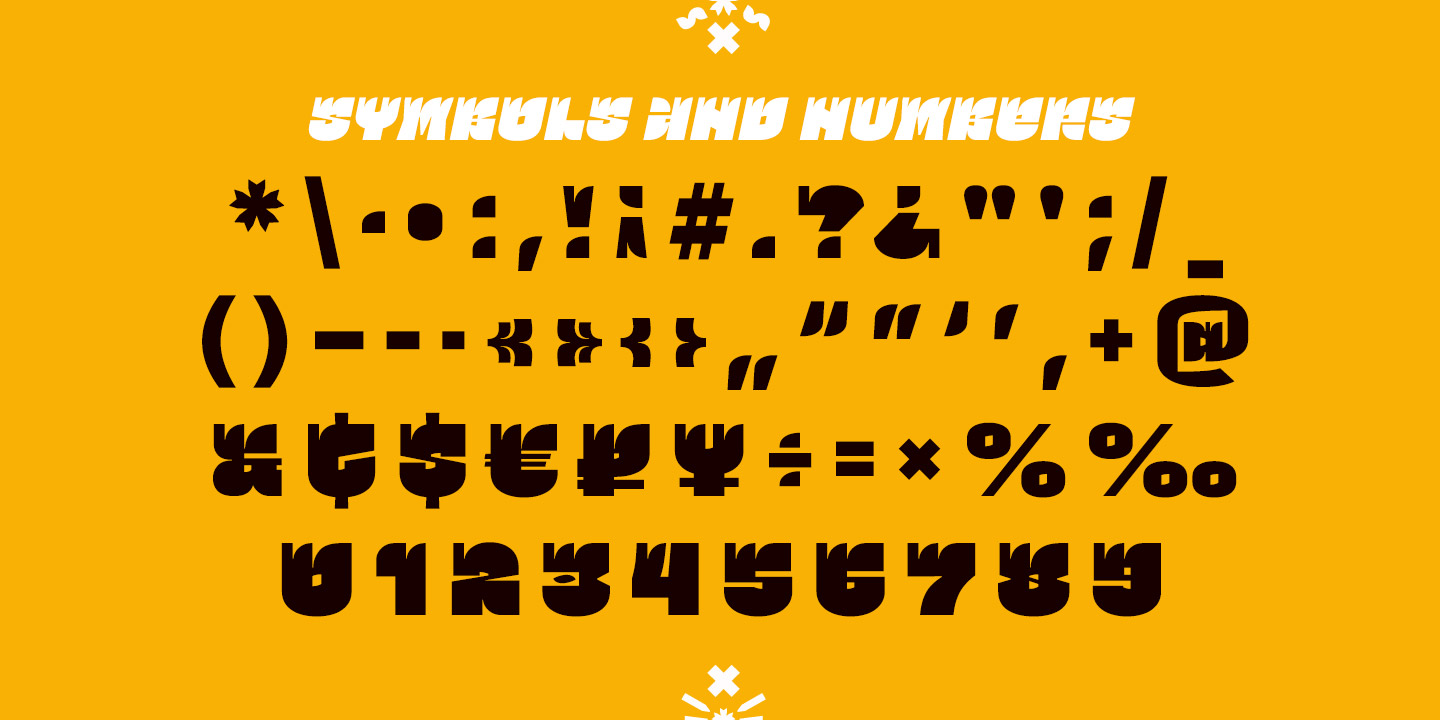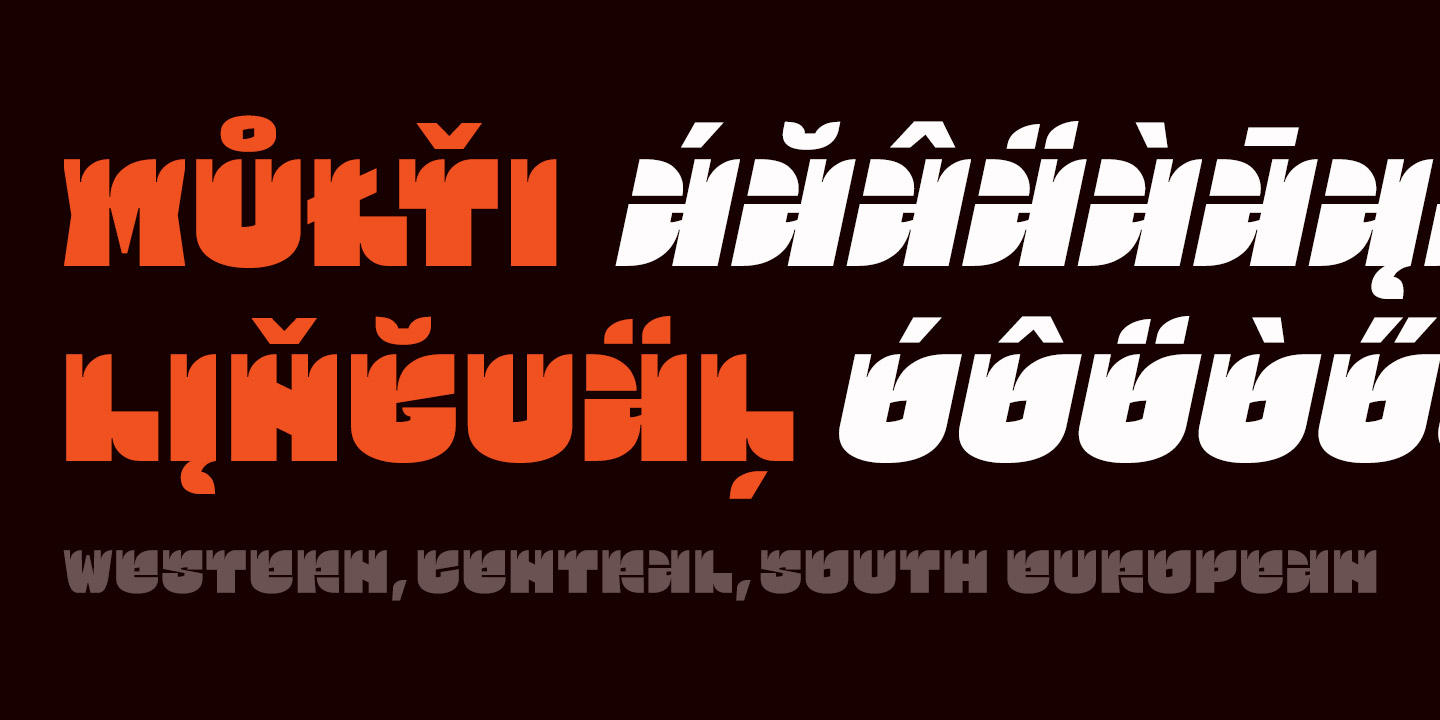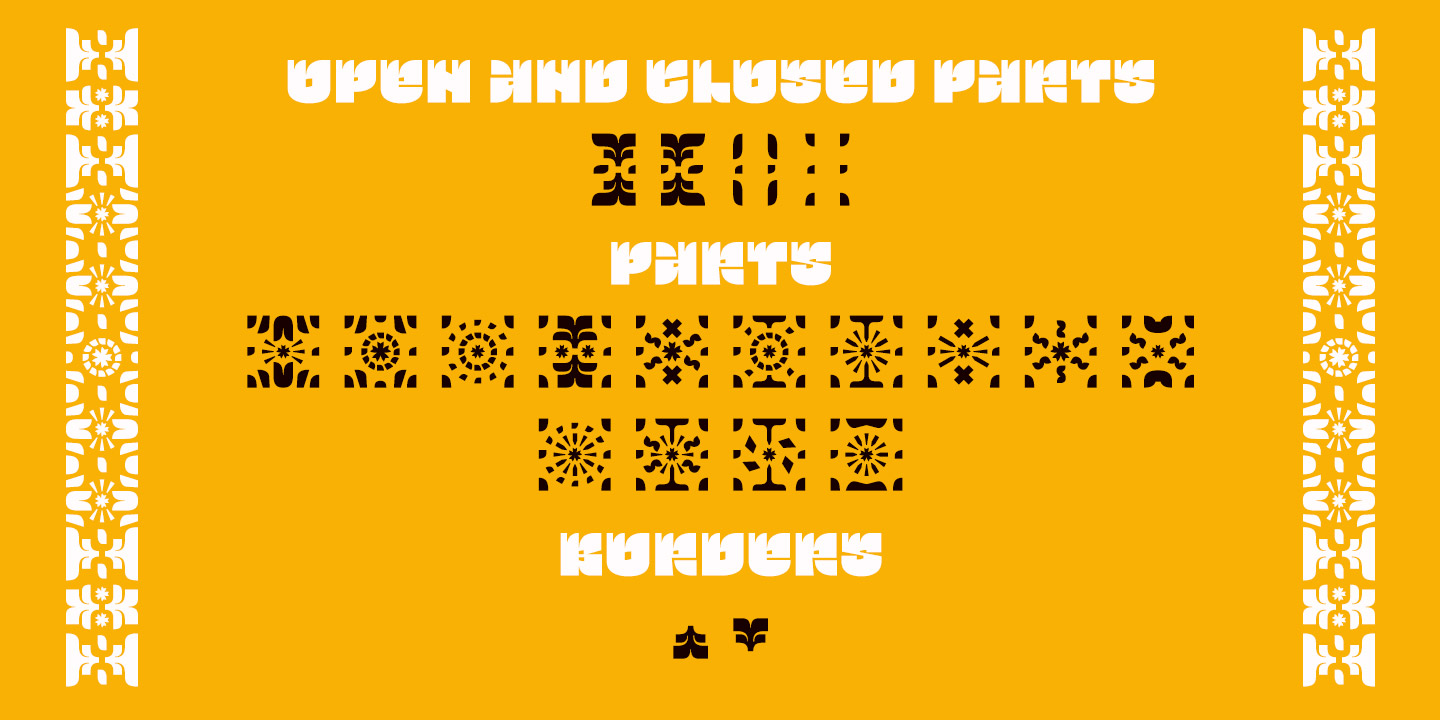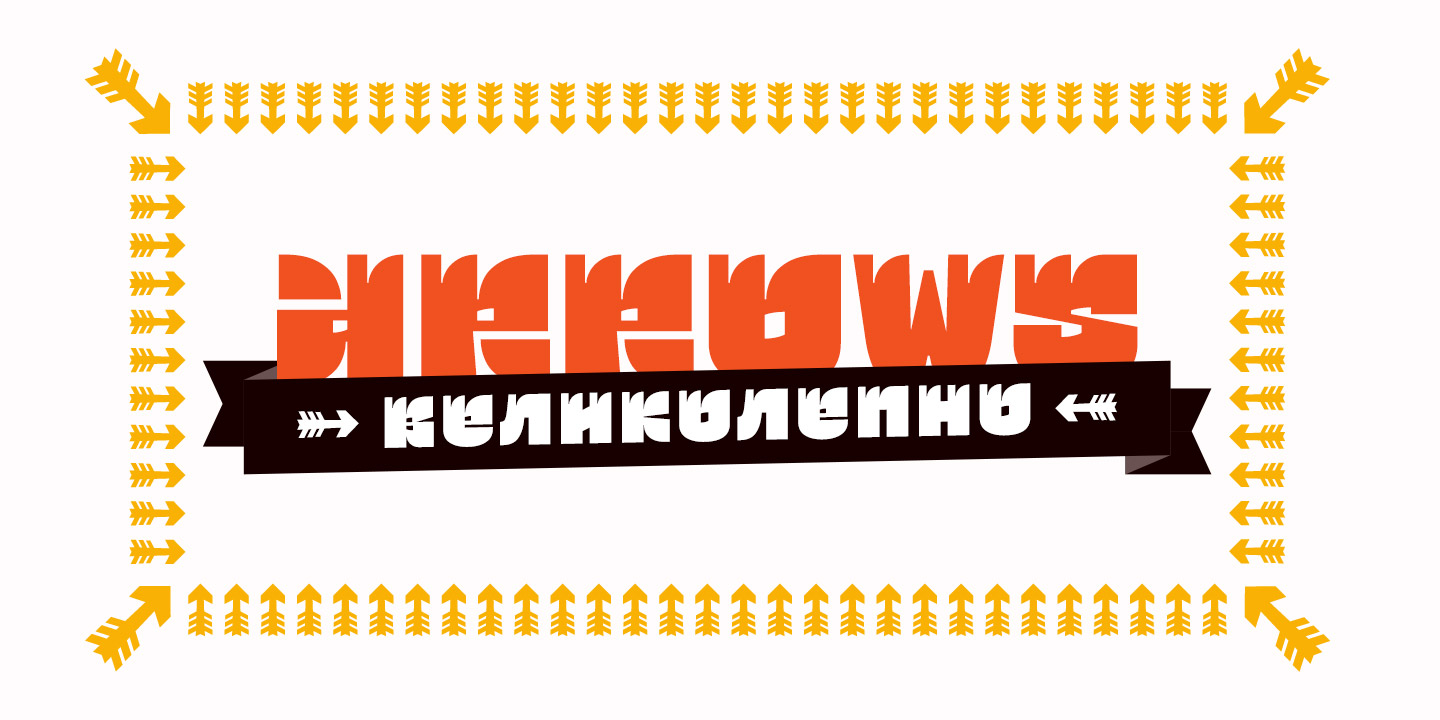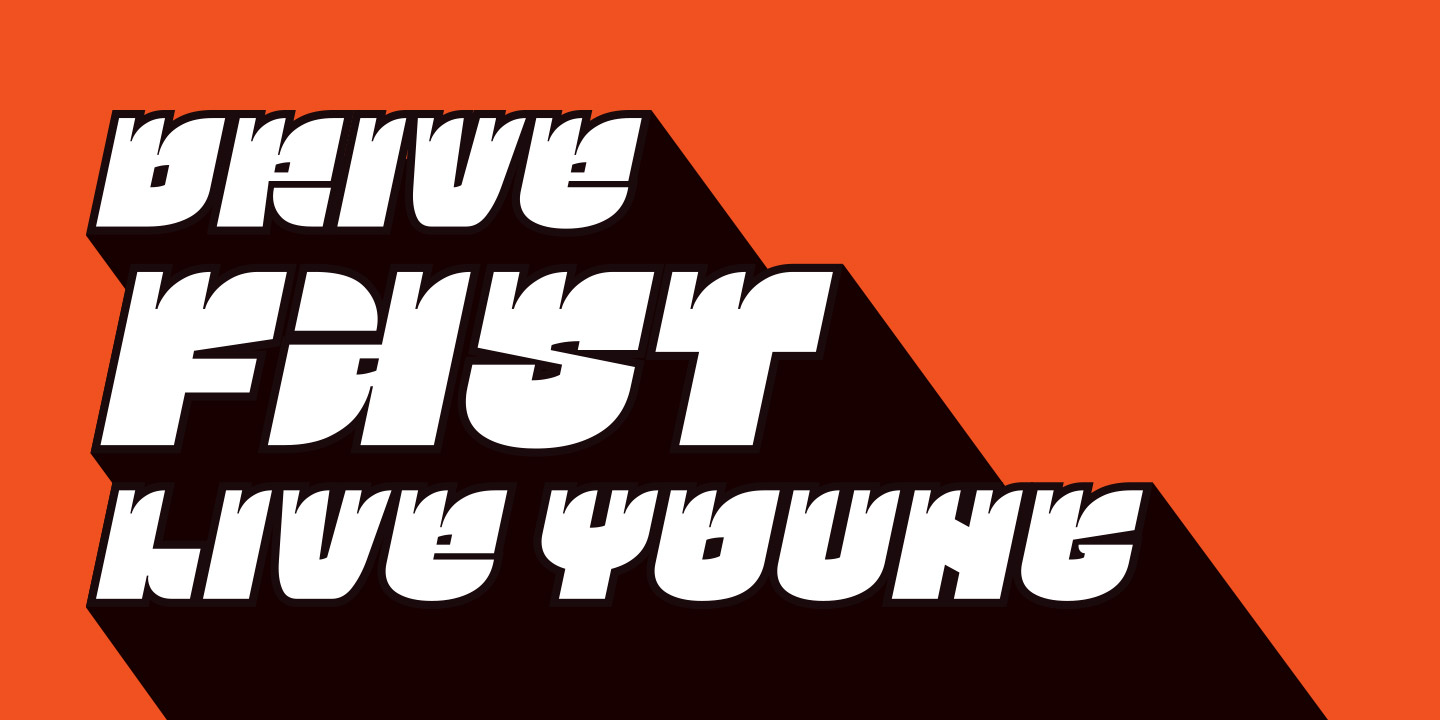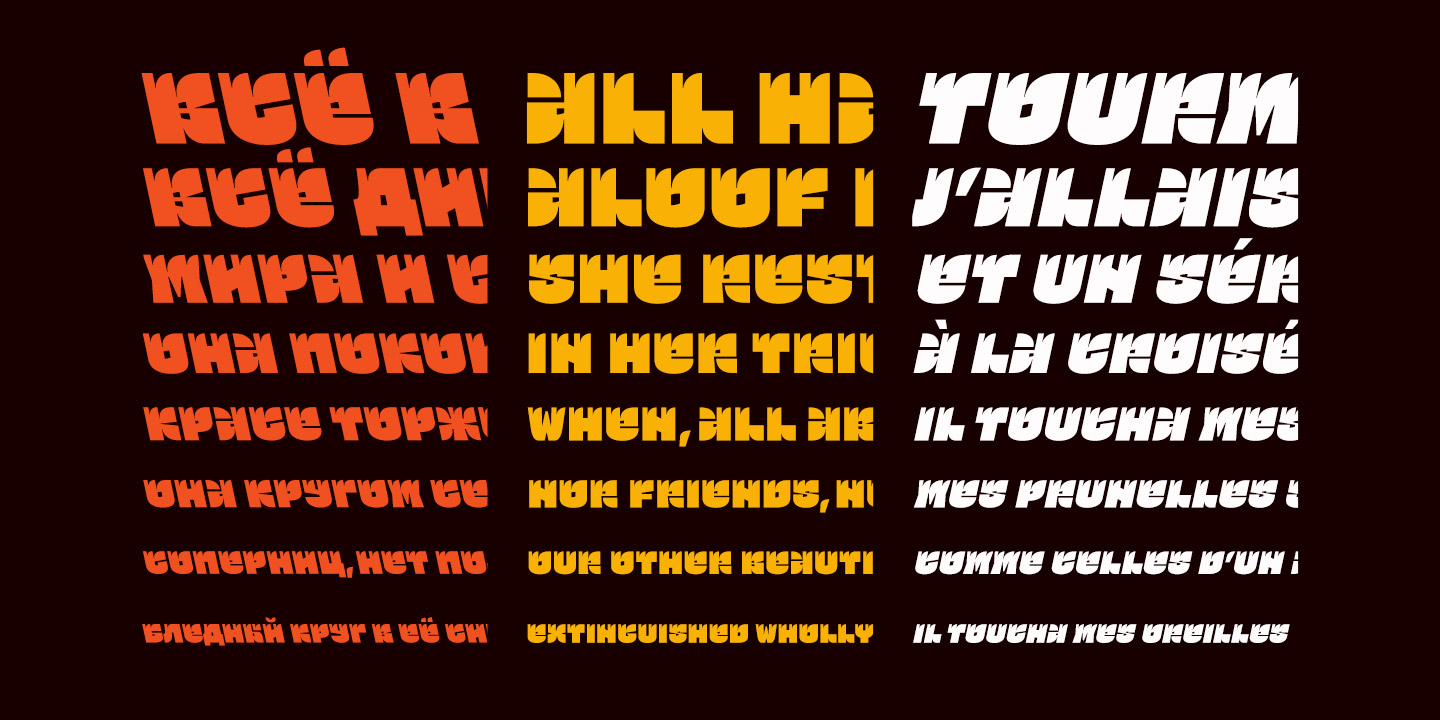
Accidental grotesque with a fiery character. Three font styles: Regular, Italic, Retalic. For each typeface an additional ornament was developed. The «Ogonyok» works well in larger sizes. Looks cool on titles, logos, music album covers, posters, packaging and in short texts. Special gorgeous ornaments will complement and enhance any design. Just try to type the text at the bottom of this page and you will see for yourself. Multilingual. Support: Cyrillic, Latin, extended Latin (Western European, Central European, South-East).